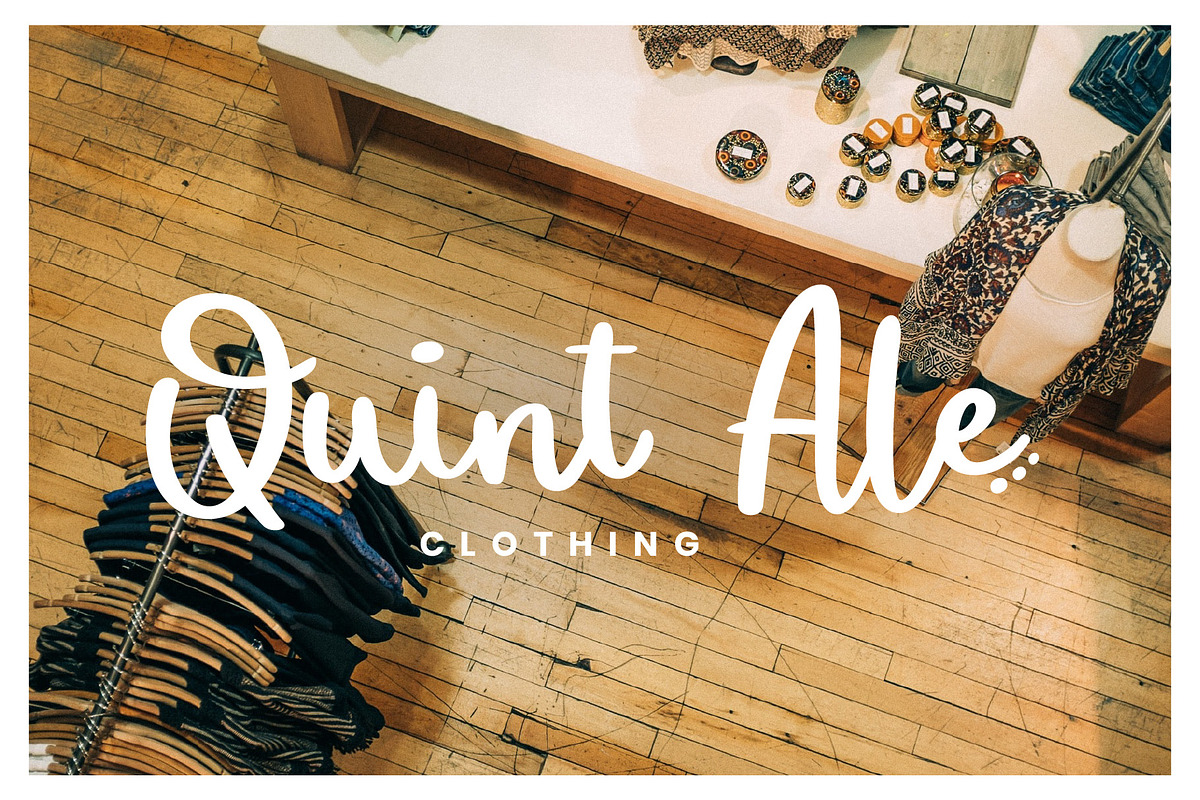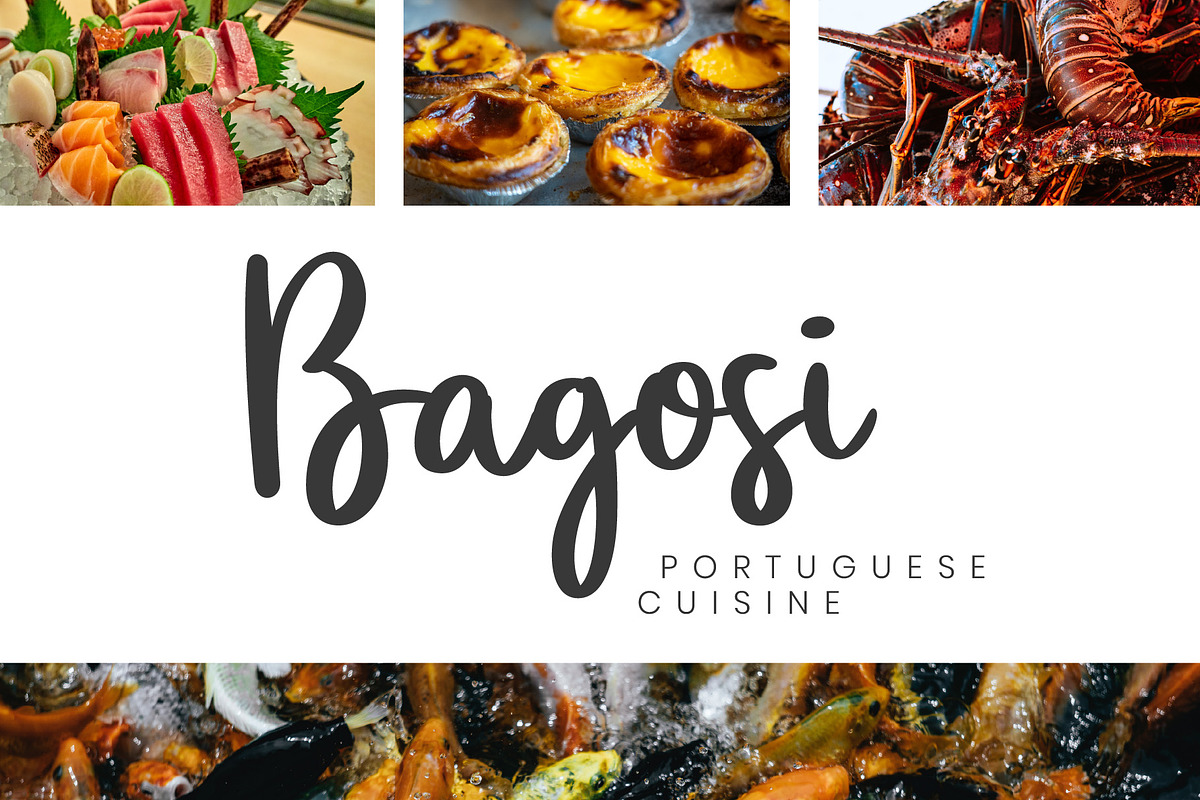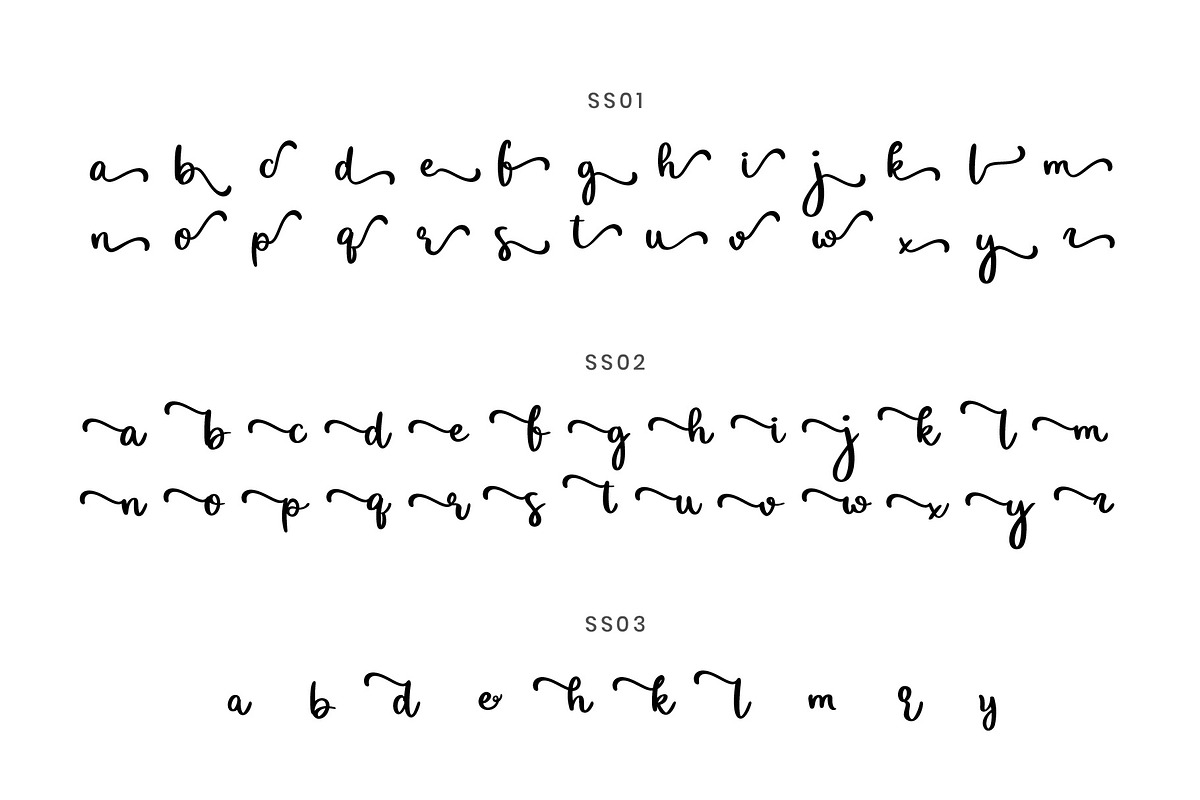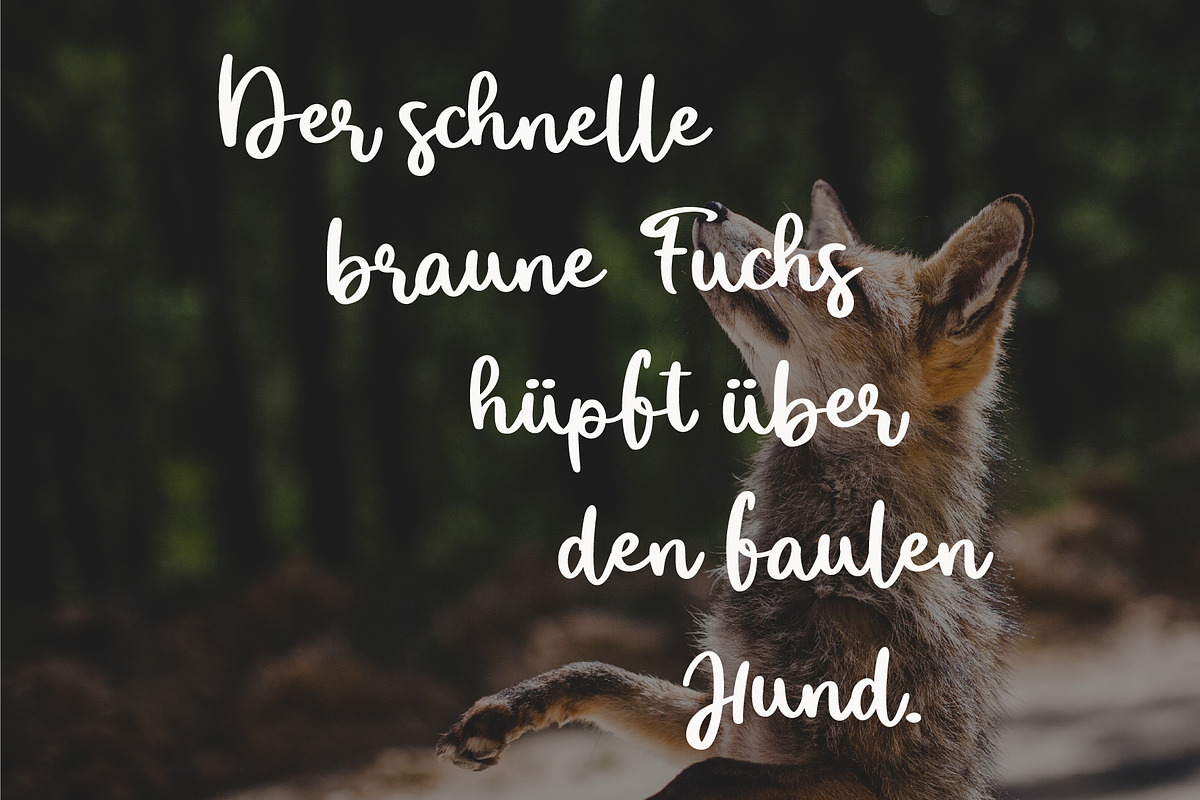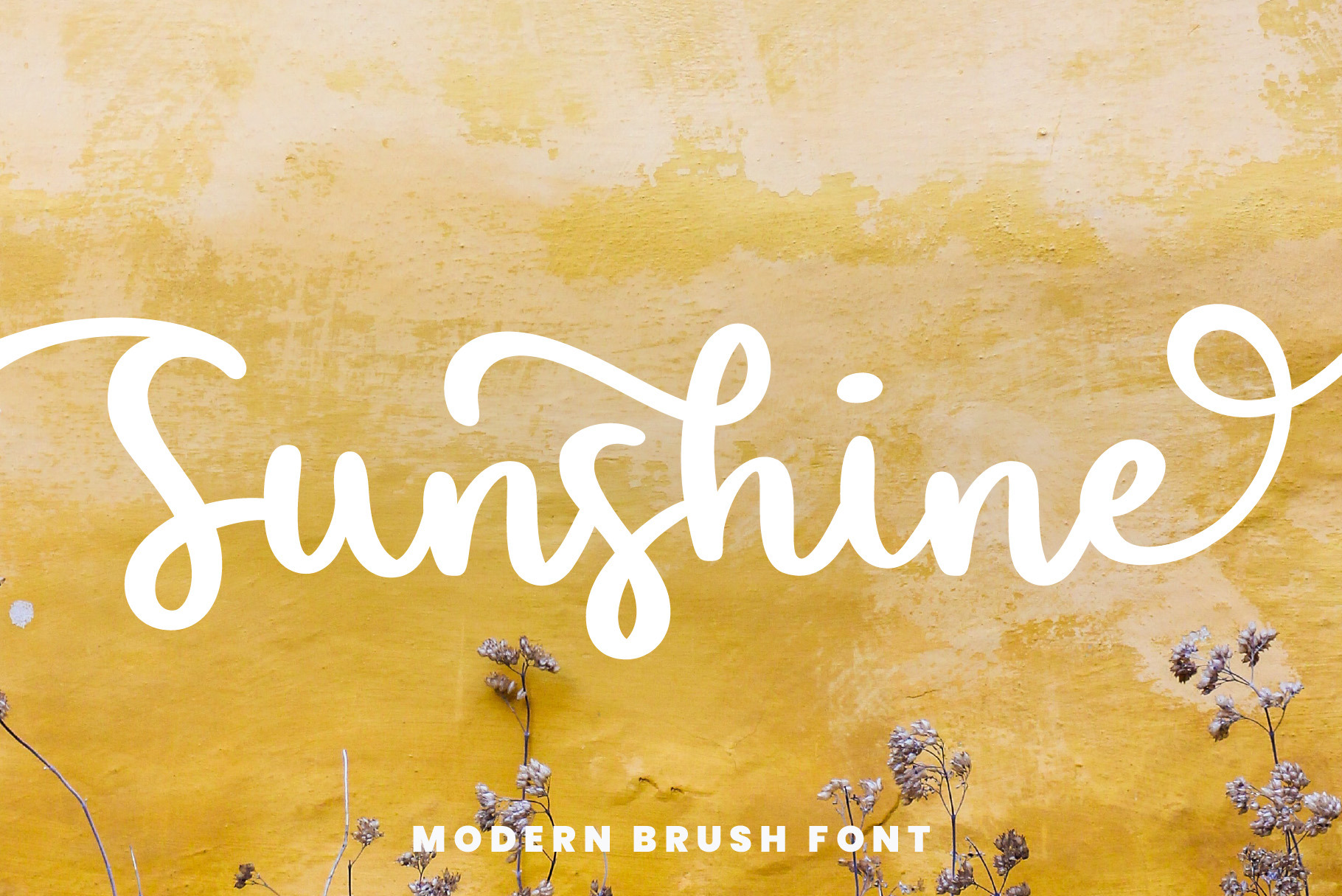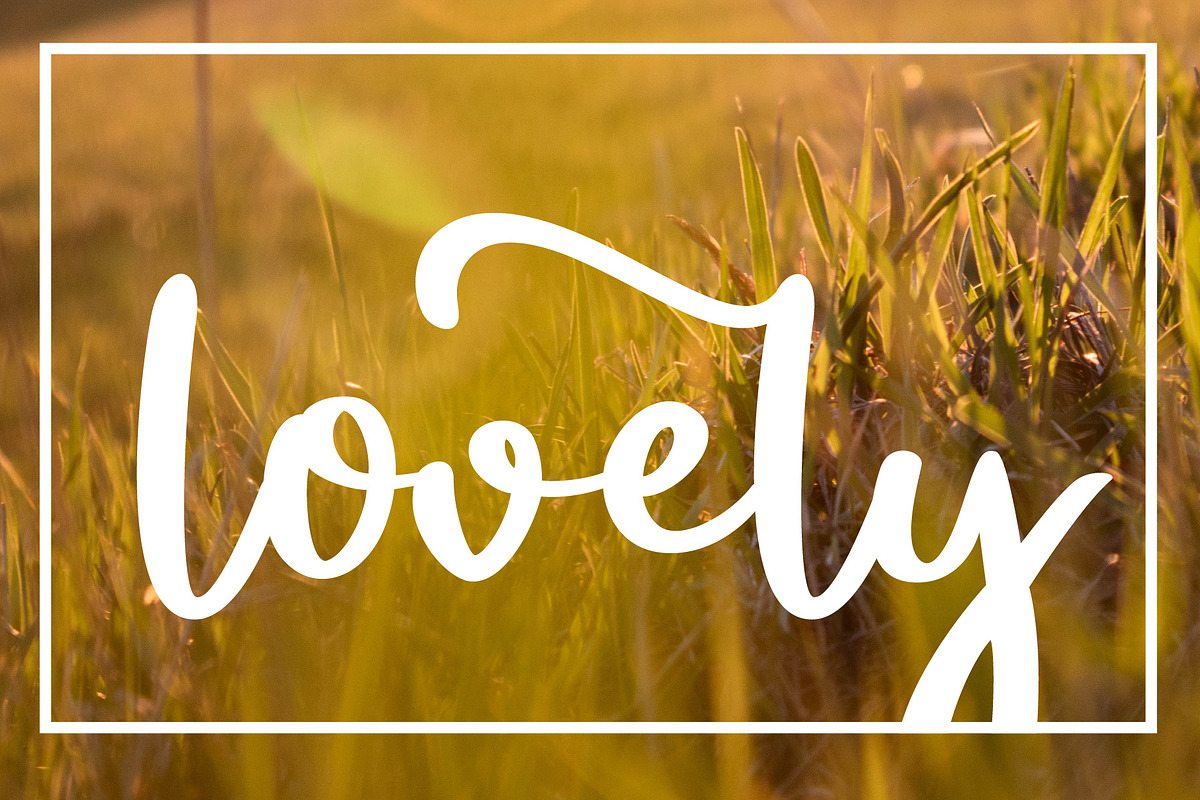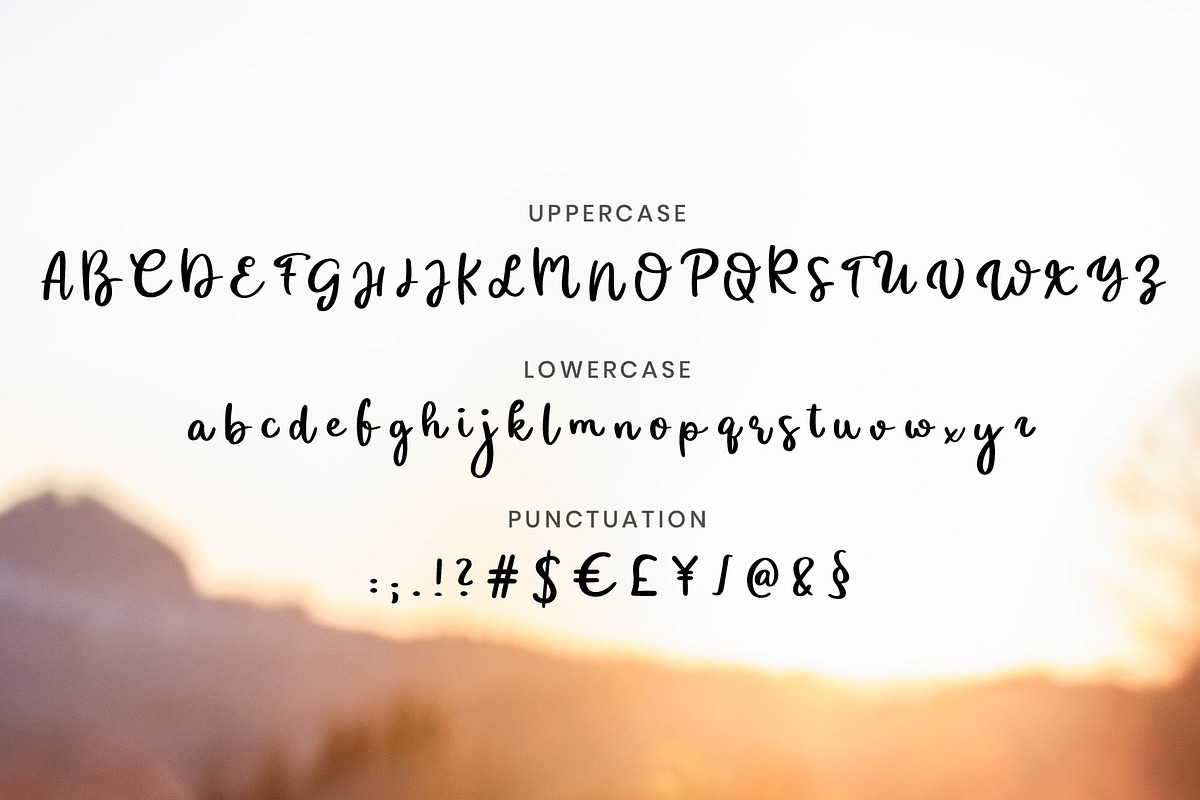
Sunshine - A Brush Font
Sunshine is our newest script font with a modern brush pen style. It is a flexible font which makes it perfect to match with other typefaces to create a beautiful work like illustration, logo, wedding card, book cover, fashion design and many more.
The full typeface has more than 540 glyphs including ligatures, contextual alternates, extended language support and other open type features. Visit our website to download a free demo version!